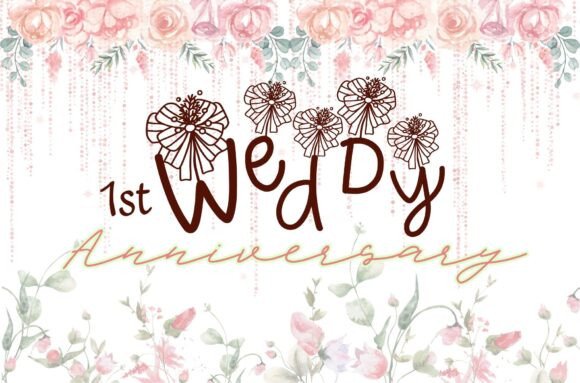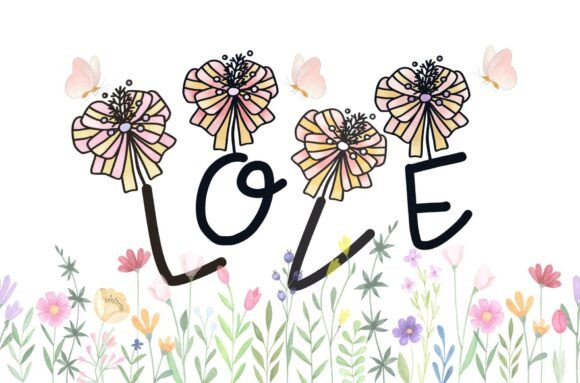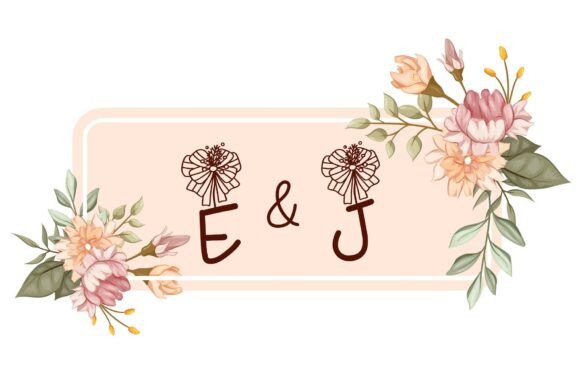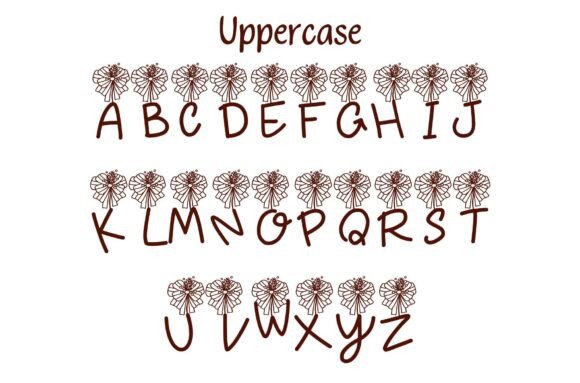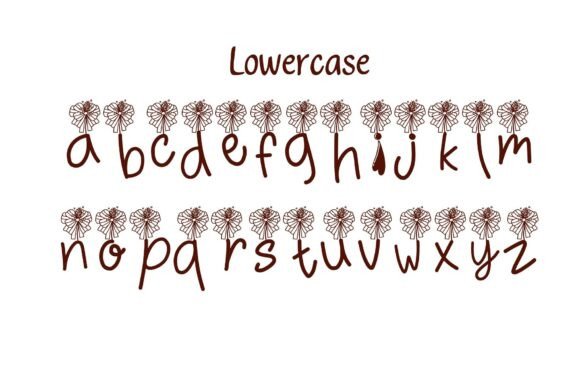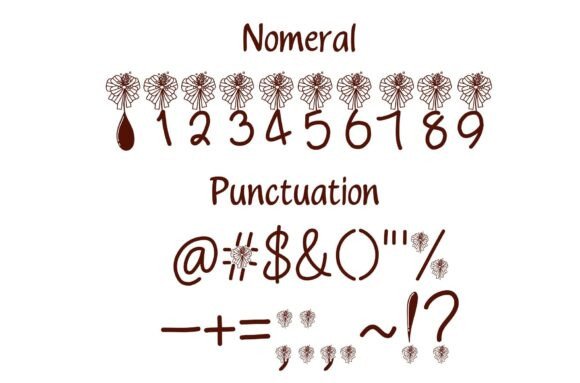
Have you ever stared at a blank page, waiting for inspiration to strike? For designers, those moments can be both exhilarating and daunting. But what if you had the perfect tool to spark your creativity and bring your ideas to life? Enter the Bloomy Bouquet Font, a charming and elegant typeface that’s sure to add a touch of whimsy to your designs.
This decorative font is more than just a pretty face – each letter is topped with a beautiful bow, adding a delicate and feminine touch to your text. Whether you’re designing a wedding invitation, a baby shower card, or a social media post, the Bloomy Bouquet Font is the perfect choice to elevate your message and make it stand out.
Bloomy Bouquet Font Key Features
- Font Family: A beautiful, hand-drawn script font designed for wedding invitations, greeting cards, and other creative projects.
- Unique Characteristics: The Bloomy Bouquet Font features intricate floral details, delicate brushstrokes, and a soft, whimsical feel, making it perfect for adding a touch of elegance and romance to your designs.
Bloomy Bouquet Font Review
Overall, I think the Bloomy Bouquet font has some great qualities, but it also has a few areas where it falls short. Let’s dive in and see what I mean.
- The font’s floral theme is immediately clear, and it’s well-executed. The designer has done a great job of creating a cohesive look.
- The font is highly customizable, which is great for designers who want to tailor it to their specific project.
- The font is well-suited for projects that need a touch of whimsy and romance, such as wedding invitations or baby announcements.
- The font can feel a bit over-the-top or too playful in certain contexts. It may not be the best choice for projects that need a more serious tone.
- The font’s characters can be a bit difficult to read at small sizes, which may be a problem for designers who need to use it in small print.
- The font’s extensive customization options can also be overwhelming for designers who are new to font design.
Overall, I think the Bloomy Bouquet font is a great choice for designers who are looking for a unique and customizable font for projects that need a touch of whimsy and romance. However, it may not be the best choice for every project, and designers should be aware of its limitations before using it.
The Bloomy Bouquet Font is ideal for:
Floral-themed designs and graphics
Vintage-inspired projects and illustrations
Any project where a whimsical, floral font is desired
To get the most out of the Bloomy Bouquet Font, try the following:
Pair it with pastel colors and floral patterns for a cohesive look
Use it in combination with other whimsical fonts for added visual interest
Experiment with different font sizes and styles to create